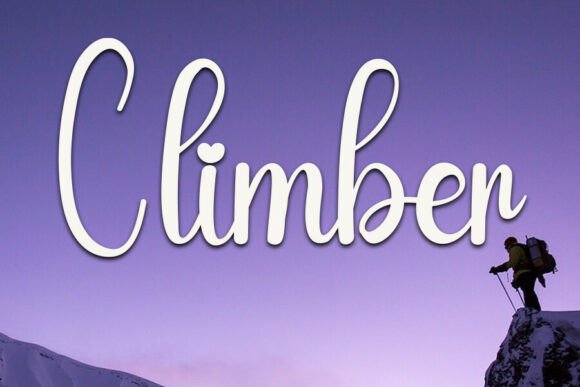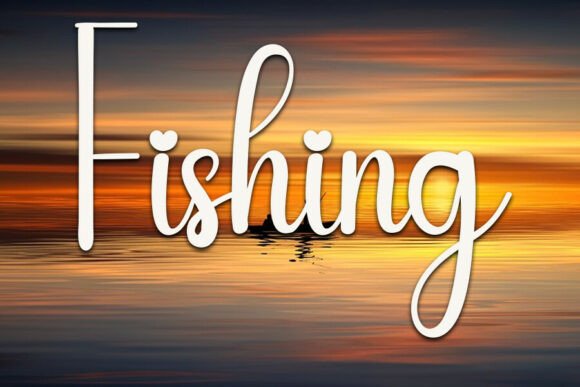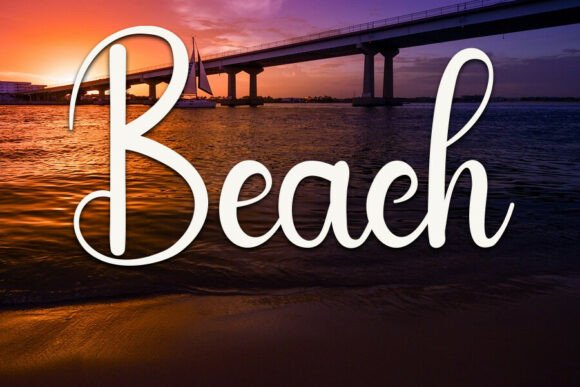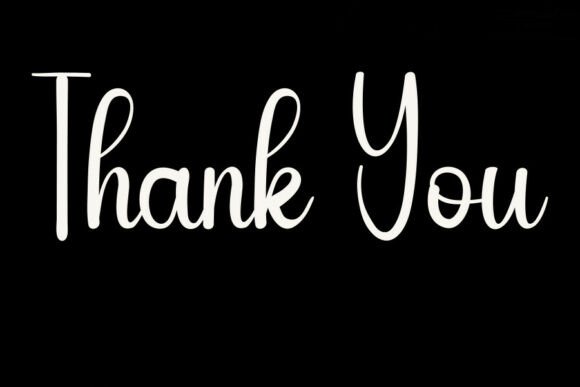
Introducing Badminton Font: The Perfect Handwritten Style for Your Designs
Are you looking for a font that can add a personal touch to your designs? Look no further than Badminton Font, a neat and casual handwritten font that brings warmth and authenticity to any project. With its smooth strokes, subtle irregularities, and natural flow, Badminton Font captures the charm of real handwriting while maintaining clarity and balance.
The Characteristics of Badminton Font
Badminton Font is a carefully crafted handwritten font that boasts a range of characteristics that make it perfect for a variety of design applications. Its smooth strokes and subtle irregularities give it a natural, organic feel that is reminiscent of real handwriting. The font’s letters are carefully balanced to ensure that they are easy to read, even at small sizes.
One of the standout features of Badminton Font is its relaxed style. Unlike some handwritten fonts that can look stiff or formal, Badminton Font has a casual, laid-back vibe that makes it perfect for creative and everyday projects alike. Whether you’re designing a logo, creating social media graphics, or working on a journal or scrapbook, Badminton Font is a versatile choice that can help you achieve your design goals.
Uses for Badminton Font
- Quotes and Inspirational Sayings: Badminton Font is a great choice for quotes and inspirational sayings. Its smooth strokes and natural flow make it easy to read, and its relaxed style gives it a friendly, approachable feel.
- Journals and Planners: If you’re creating a journal or planner, Badminton Font is a great choice for headings, titles, and other design elements. Its handwritten style adds a personal touch that can make your project feel more special and unique.
- Logos and Branding: Badminton Font is also a great choice for logos and branding. Its relaxed style makes it perfect for creating a friendly, approachable brand identity that will resonate with your target audience.
- Social Media Graphics: Whether you’re creating graphics for Instagram, Facebook, or Twitter, Badminton Font is a great choice. Its clear, easy-to-read letters make it perfect for creating eye-catching graphics that will grab your followers’ attention.
Why Choose Badminton Font?
- Warmth and Authenticity: Badminton Font adds a warm, authentic touch to any design. Its handwritten style gives it a personal feel that can help you connect with your audience.
- Readability: Unlike some handwritten fonts that can be difficult to read, Badminton Font is carefully crafted to ensure that it is clear and easy to read, even at small sizes.
- Versatility: Badminton Font is a versatile choice that can be used for a wide range of design applications. Whether you’re creating a logo, designing a journal, or working on social media graphics, Badminton Font is a great choice.
In conclusion, Badminton Font is a great choice for designers and crafters who are looking for a handwritten font that can add a personal touch to their designs. With its smooth strokes, subtle irregularities, and natural flow, Badminton Font captures the charm of real handwriting while maintaining clarity and balance. Its relaxed style makes it perfect for a wide range of design applications, from quotes and journals to logos and social media graphics. So why not give Badminton Font a try and see how it can elevate your designs?